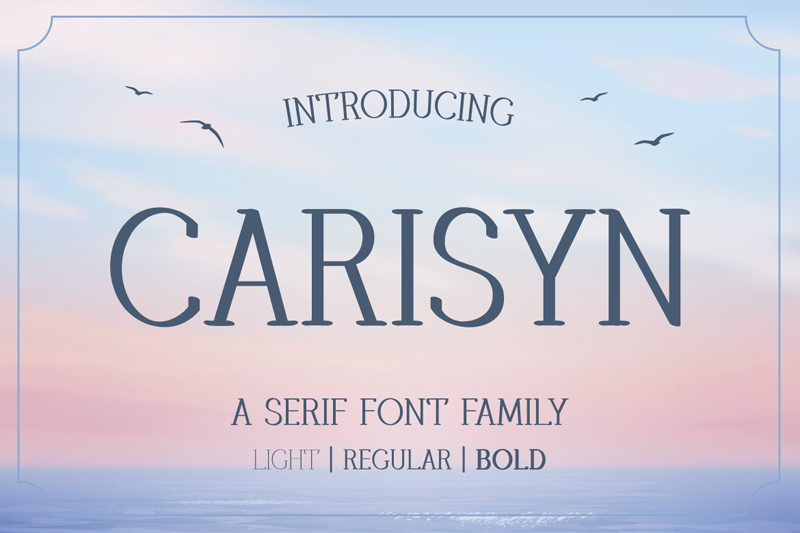
Carisyn is a casual looking serif font, that features a simple and minimalist feel. This font will brighten up each of your designs. The only limit is your imagination! Full Version Download Here : https://typefactory.co/product/carisyn-serif-font-family/ https://www.creativefabrica.com/product/carisyn/ |